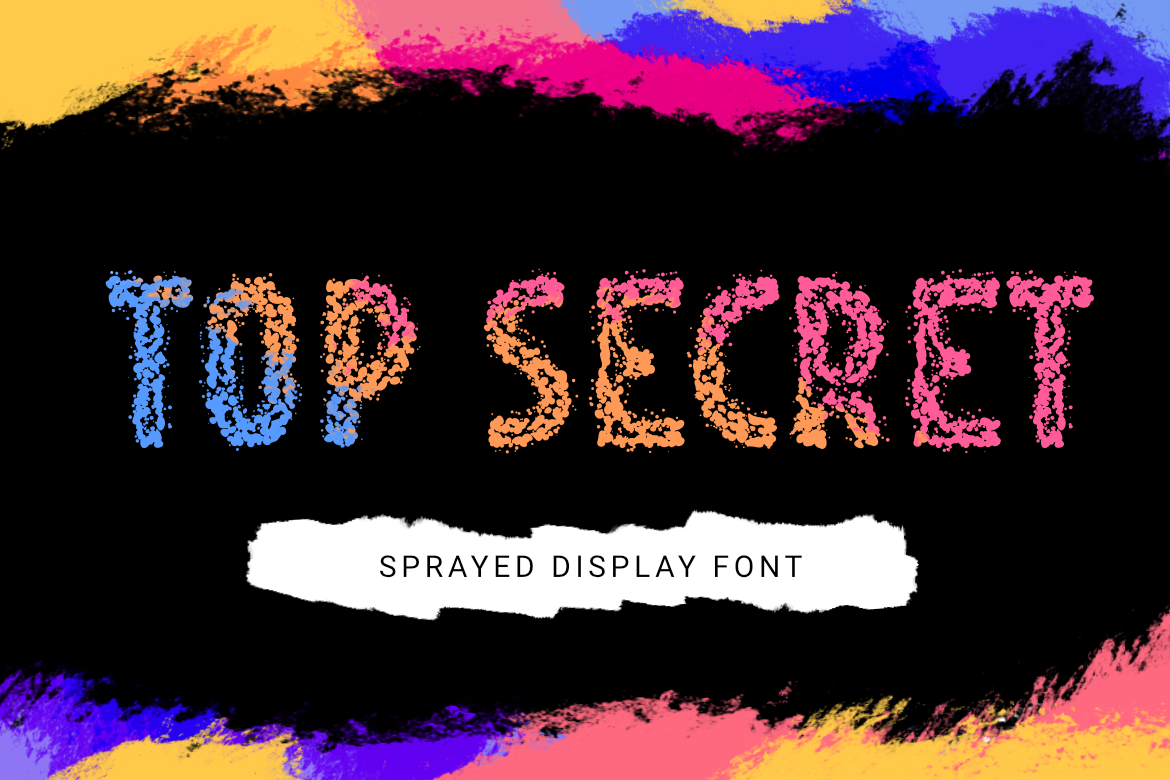
Top Secret | Sprayed Font
Top Secret is a sans serif font designed with bold dotted letters. It has fuzzy outlines with sloppy decorative dots. The font looks good on both dark and light backgrounds, it works great to make short titles.